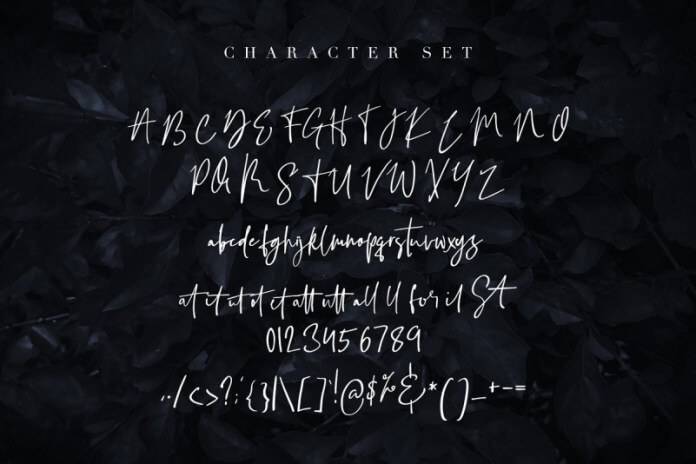
Flower for Rosalline Script Font
Introducing Flower for Rosalline Script Font. A stylish and super-chilled new handwriting font script, a piece this is basically an end result of handwriting, has a herbal characteristic! It is layout and shared with the aid of using Nurrehmet Studio. It is a fashionable & expressive script font. Flower for Rosalline Script unfastened for private use. The font has the ability to apply it in all lengths from big to tiny.
The font appears incredible in italic shape which makes it greater appealing and classy. As a handwritten font, you may utilize it withinside the frame of any ee-ebook or novel. You also can incredible mag covers with the aid of using including a chunkboldness and italic vibe to this font. The Font is compatible with Windows, Apple/Mac, Linux, Cricut, Silhouette, and other cutting machines. The Font can easily be converted to web font, which is a basic need for many designers. This typeface is available in two formats: TTF and OTF.
It’s a hand-drawn font and designed to flawlessly re-create herbal handwriting. It’s correct for fashionable branding & brand projects, product packaging, handwritten quotes & wedding ceremony invitation. The font is likewise a superb alternative for the use of an invitation card with plenty of shade variations.